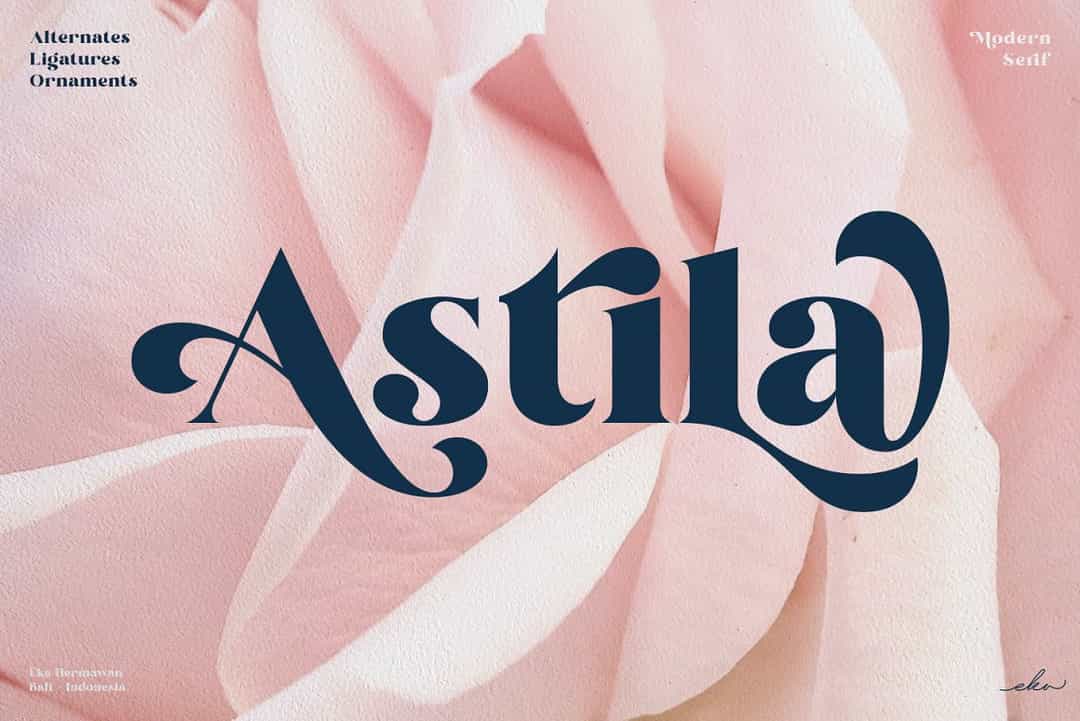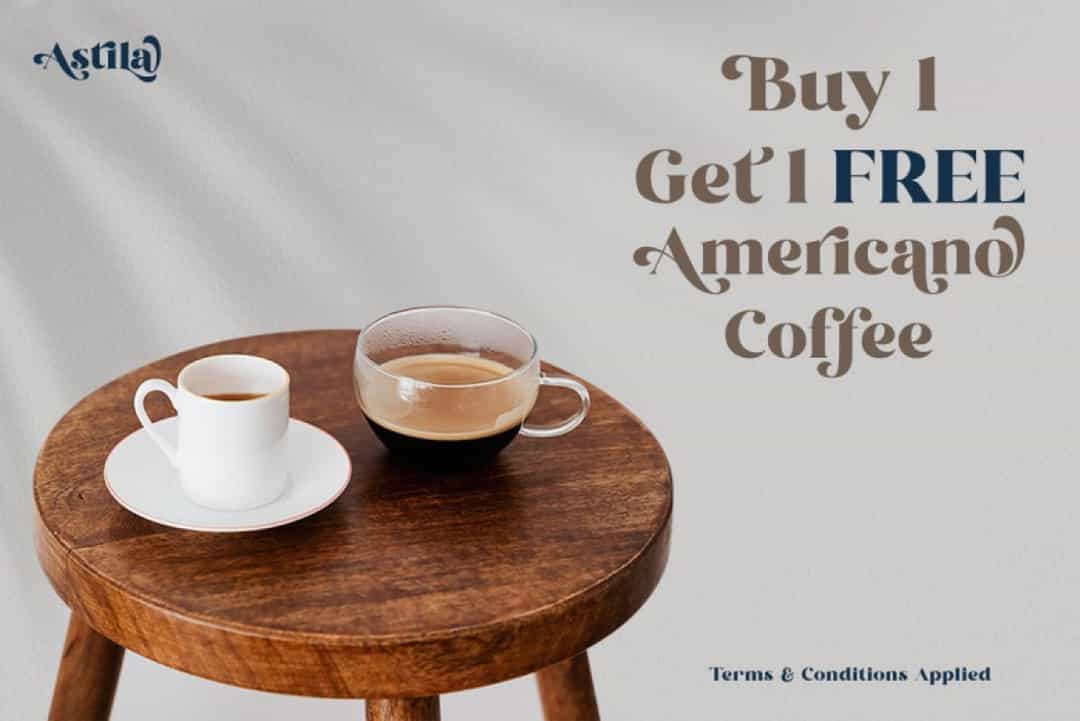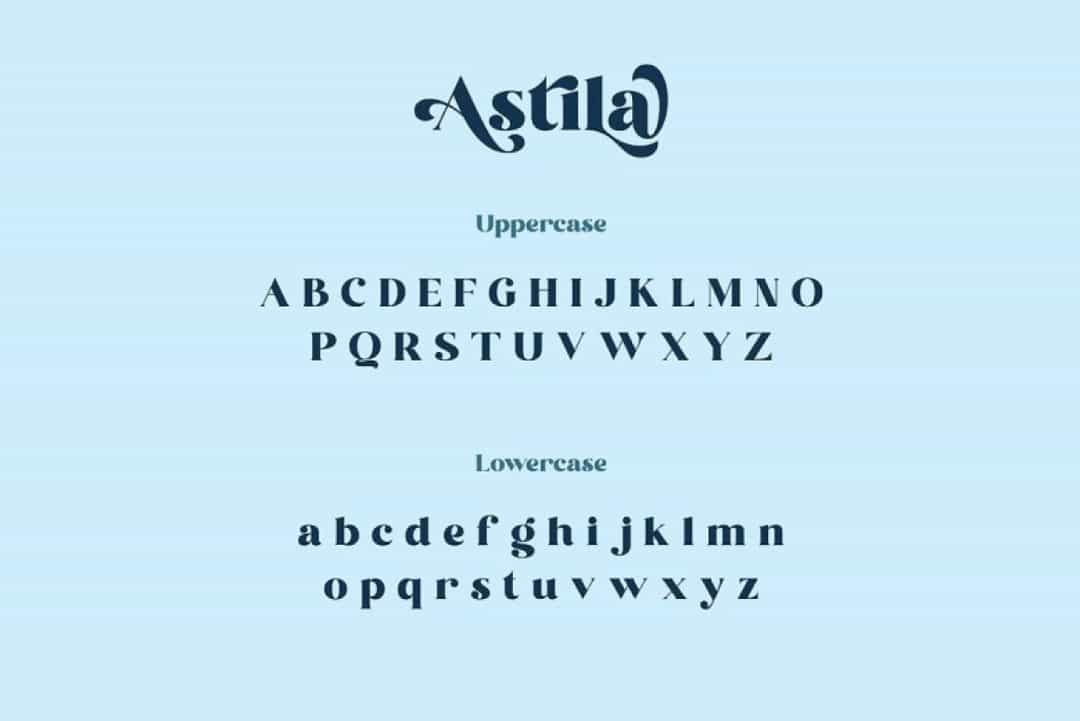
Astila is an eye-catching modern serif typeface featuring over 100 distinct characters (PUA encoded) to deliver various typographic design options. Astila font can be used for various projects such as logos posters branding magazines labels merchandise presentation cards advertising quotes etc.